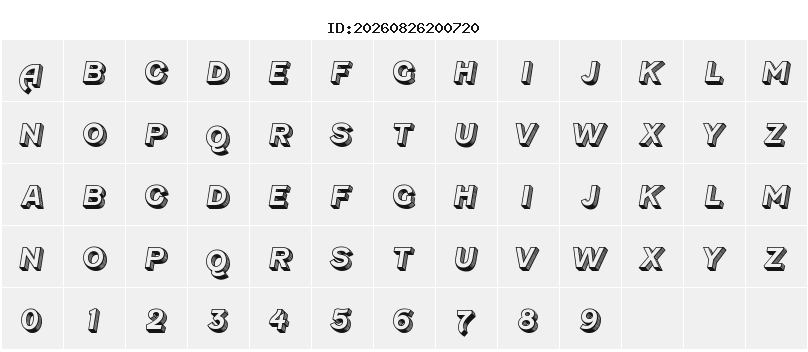
• Font Name: Fenwick Olden
• Full Font Name: Fenwick Olden
• Designer: Ray Larabie
Fenwick Olden.ttf is a modern, elegant sans-serif font designed for ultimate readability and visual harmony. Perfect for branding, headlines, web design, and print materials.